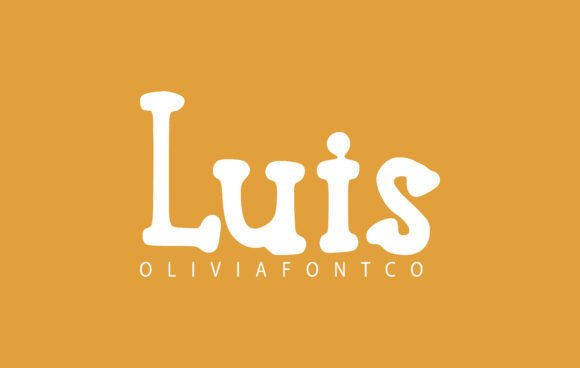
Luis Font: The Ultimate Handwritten Font for Creative Projects
Luis Font is an authentic handwritten font that has captured the hearts of designers and creative enthusiasts alike. With its romantic touch and expertly crafted design, this font has become a favorite among those looking to elevate their creative ideas to new heights. In this article, we’ll dive into the world of Luis Font, exploring its features, benefits, and uses, as well as provide tips on how to make the most of this incredible font.
What is Luis Font?
Luis Font is a carefully crafted handwritten font that exudes a sense of romance and elegance. Its unique design makes it perfect for a wide range of creative projects, from magazine headlines and social media graphics to branding, wedding invitations, and cards. This font is designed to be highly legible, making it suitable for use as both title and body text.
Key Features of Luis Font
- Authentic Handwritten Design: Luis Font boasts an authentic handwritten design that adds a personal touch to any project.
- Romantic Touch: The font’s romantic touch makes it perfect for projects that require a sense of elegance and sophistication.
- High Legibility: Luis Font is designed to be highly legible, making it suitable for use as both title and body text.
- Versatile: This font can be used for a wide range of creative projects, from magazine headlines and social media graphics to branding, wedding invitations, and cards.
The Benefits of Using Luis Font
So, why should you choose Luis Font for your creative projects? Here are just a few benefits of using this incredible font:
- Elevate Your Creative Ideas: With Luis Font, you can take your creative ideas to new heights. Its unique design and romantic touch make it perfect for projects that require a sense of elegance and sophistication.
- Save Time and Effort: Luis Font is designed to be highly legible and versatile, saving you time and effort when working on creative projects.
- Stand Out from the Crowd: With its authentic handwritten design and romantic touch, Luis Font can help your projects stand out from the crowd and leave a lasting impression on your audience.
Uses of Luis Font
Luis Font is a versatile font that can be used for a wide range of creative projects. Here are just a few examples:
- Magazine Headlines: Luis Font is perfect for magazine headlines, adding a touch of elegance and sophistication to any publication.
- Social Media Graphics: Use Luis Font to create eye-catching social media graphics that are sure to grab the attention of your audience.
- Branding: Luis Font can be used to create a unique and memorable brand identity that sets you apart from the competition.
- Wedding Invitations: This font is perfect for wedding invitations, adding a touch of romance and elegance to any design.
- Cards: Use Luis Font to create beautiful and heartfelt cards for any occasion.
Tips for Using Luis Font
Here are a few tips for using Luis Font in your creative projects:
- Experiment with Different Sizes: Luis Font looks great in a variety of sizes, so don’t be afraid to experiment and find the perfect size for your project.
- Pair with Other Fonts: Luis Font pairs well with other fonts, so try combining it with a sans-serif font for a unique and interesting look.
- Use for Body Text: Luis Font is highly legible, making it perfect for use as body text. Try using it for longer blocks of text to add a touch of elegance and sophistication.
Luis Font is an incredible handwritten font that is sure to elevate your creative ideas to new heights. With its romantic touch, authentic design, and high legibility, this font is perfect for a wide range of creative projects. Whether you’re working on a magazine headline, social media graphic, or wedding invitation, Luis Font is the perfect choice. So why wait? Download Luis Font today and start creating stunning creative projects that leave a lasting impression on your audience.